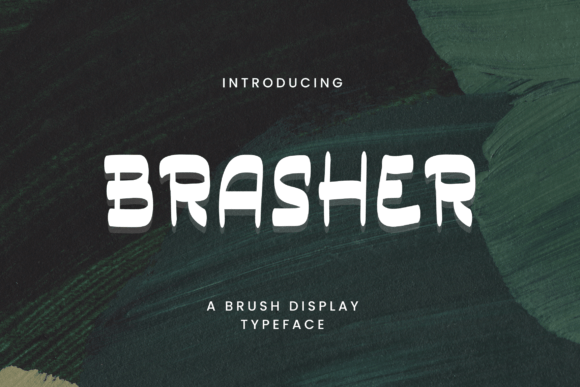
Unleashing the Power of Brasher: A Brush Display Typeface
Have you ever been in the middle of a design project, pouring your heart and soul into it, only to hit a roadblock when trying to find the perfect font? I recall a particularly frustrating experience when a client requested a bold, eye-catching typeface that would make their brand stand out. After scouring the internet for what felt like hours, I stumbled upon Brasher – a Brush Display Typeface that would change the game.
From that moment on, I was hooked. Brasher’s unique blend of bold strokes and playful spirit instantly captivated me. Every character seemed to radiate a raw energy, as if it had been hand-brushed with care. It was love at first sight – I knew I had found the perfect font for my project, and I couldn’t wait to share it with the world.
• ✅ Expressive and Bold: Brasher’s hand-brushed design gives it a distinct personality that’s hard to ignore.
• ✅ Versatile: Whether you’re working on posters, headlines, or social media graphics, Brasher adapts seamlessly to any design.
• ✅ Attention-Grabbing: This font demands attention, making it perfect for projects that need to stand out.
• ✅ Artistic Flair: Brasher adds a touch of artistic flair to any design, elevating it from ordinary to extraordinary.
• ⚠️ Legibility at Small Sizes: Brasher’s bold strokes can make it tricky to read at very small font sizes. Use it for headlines or larger text for optimal impact.
• ⚠️ Limited Formality: Due to its playful nature, Brasher might not be the best fit for formal or professional projects that require a more traditional tone.
The Story Behind Brasher: Designer Inspiration
While the true story behind Brasher remains a mystery, it’s easy to imagine a designer inspired by the raw energy of street art and hand-brushed typography. Perhaps they sought to create a font that would capture the essence of creativity and self-expression. Whatever the inspiration, Brasher has undoubtedly become a beloved font among designers and creatives.
What makes Brasher unique? Brasher’s hand-brushed design and bold strokes give it a distinct personality that’s hard to ignore.
Is Brasher suitable for body text? While Brasher is primarily designed for headlines and display text, it can be used for body text in certain contexts. However, its bold strokes may make it tricky to read in large blocks of text.